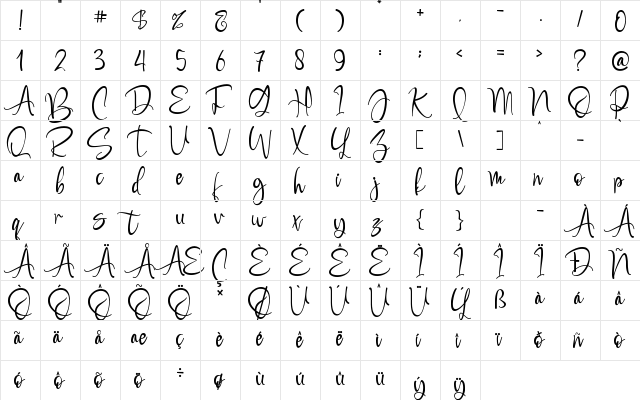
Boomolla Regular
Design Context for Boomolla Typeface
Boomolla is a composed and adaptable typeface that performs quietly and consistently across a wide range of design contexts.